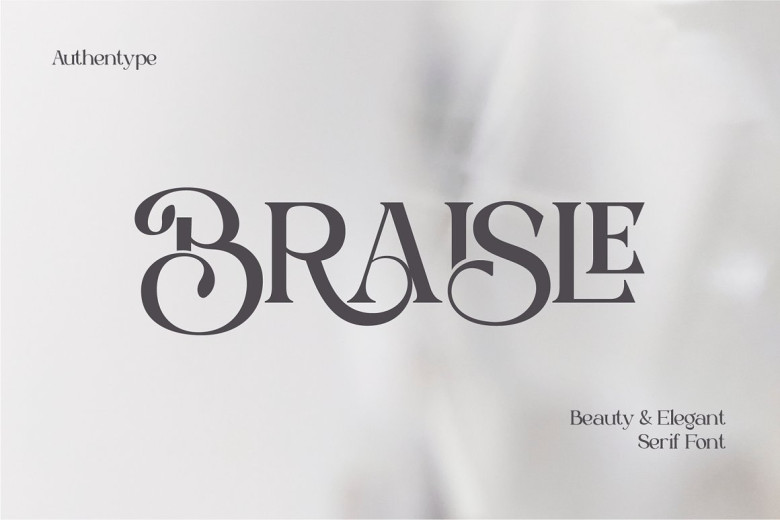
Braisle Font
Braisle – beauty and elegant serif is a font designed for beauty and a lot of charming curves. This Braisle font is great for use in broader designs or writing, with a delicate looking ligature shape make the font look even further elegant.
Braisle Serif Font